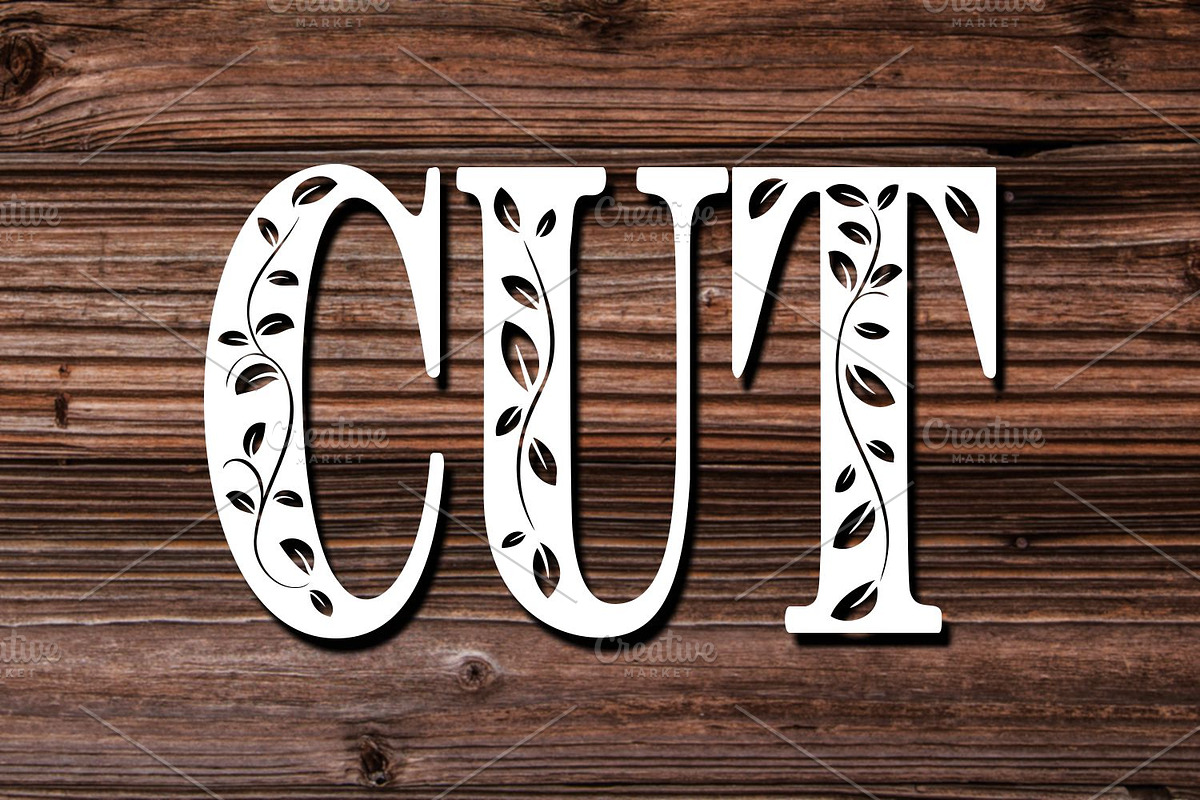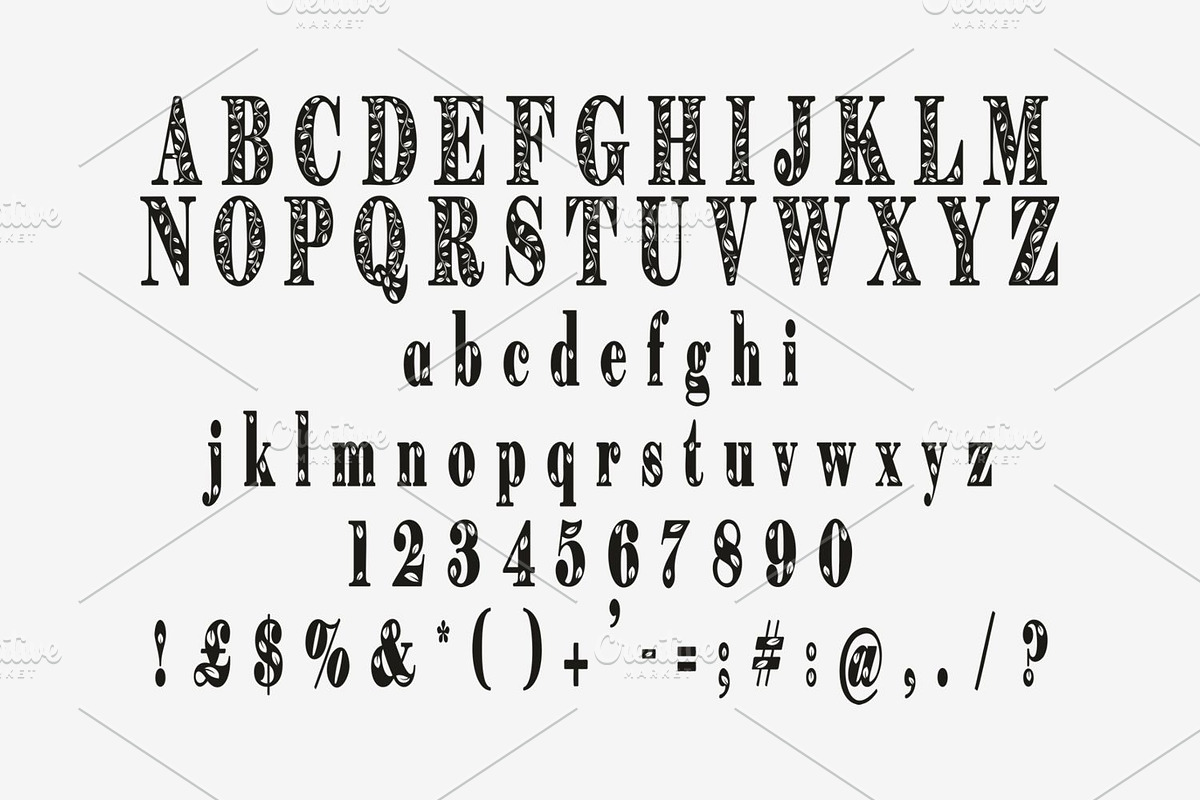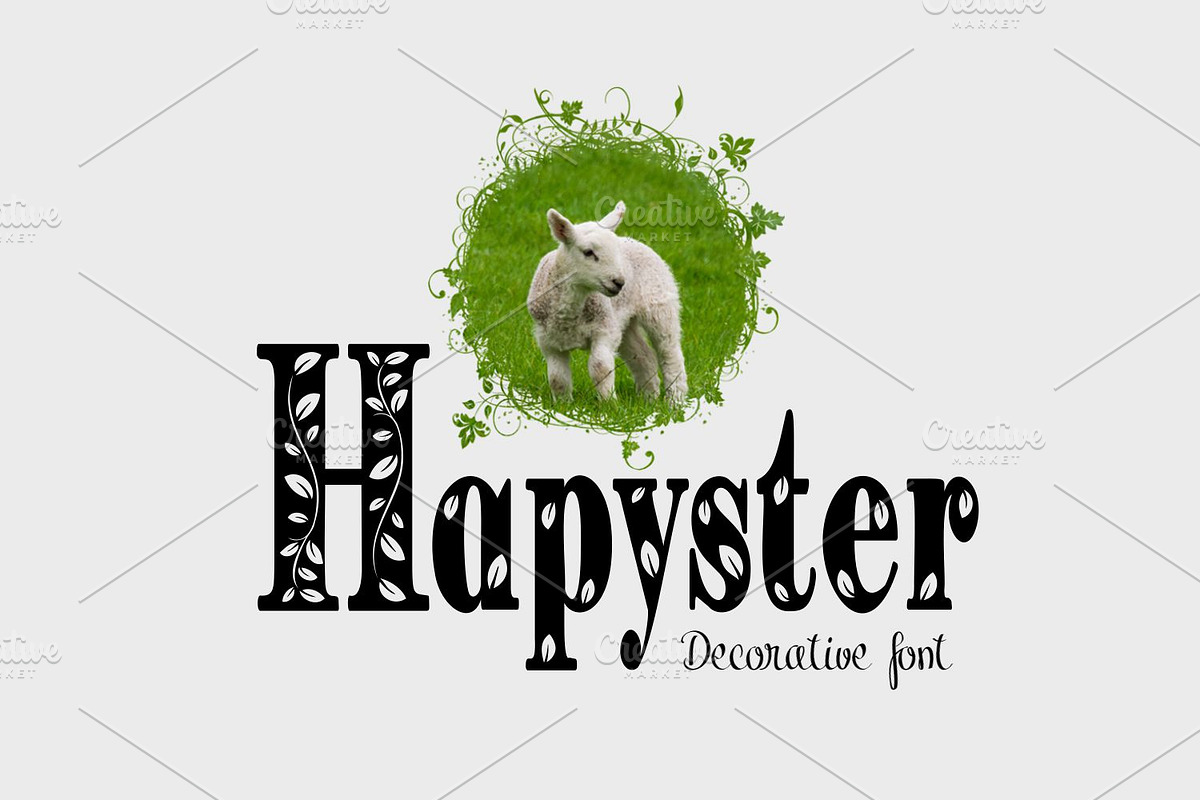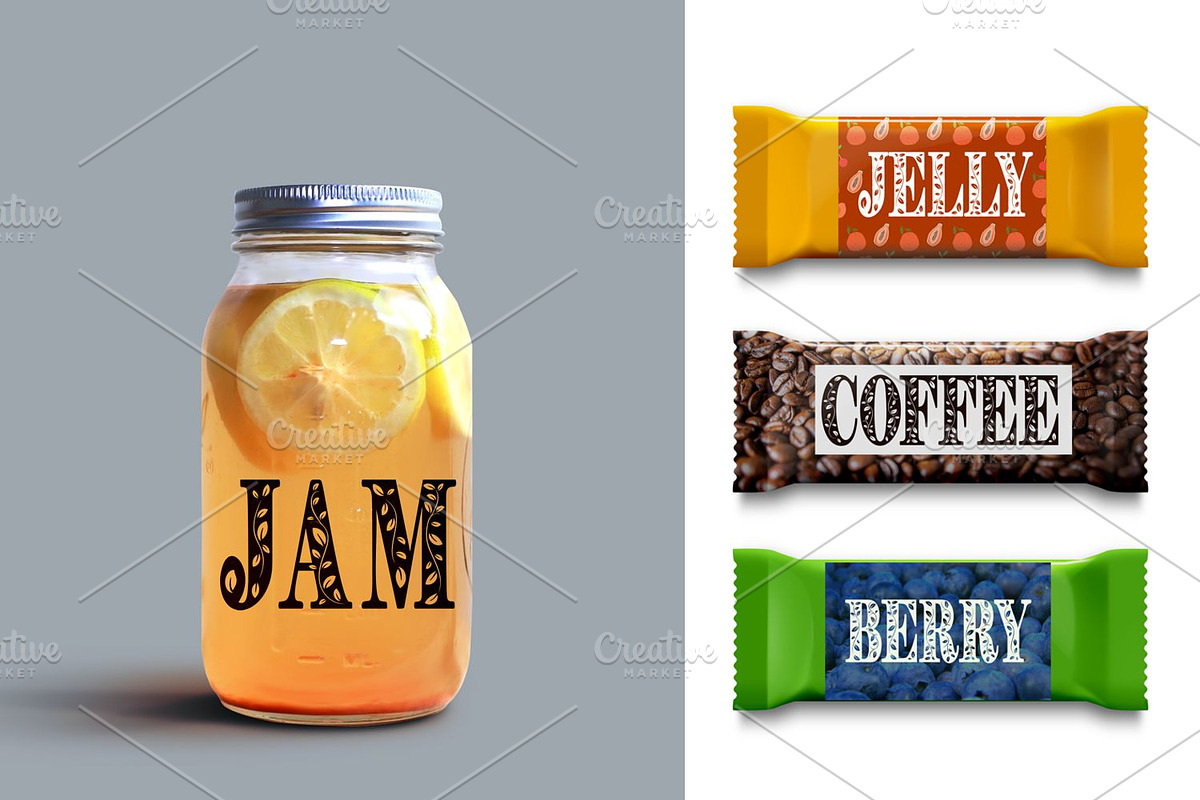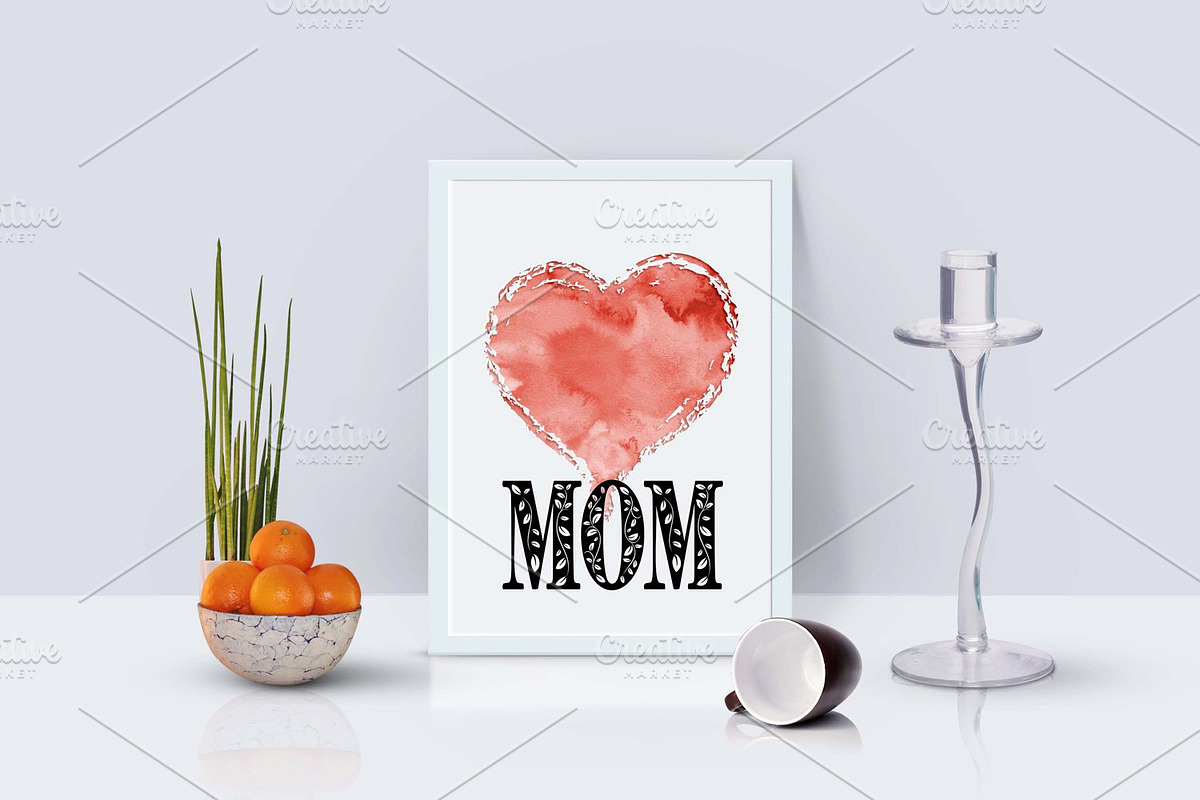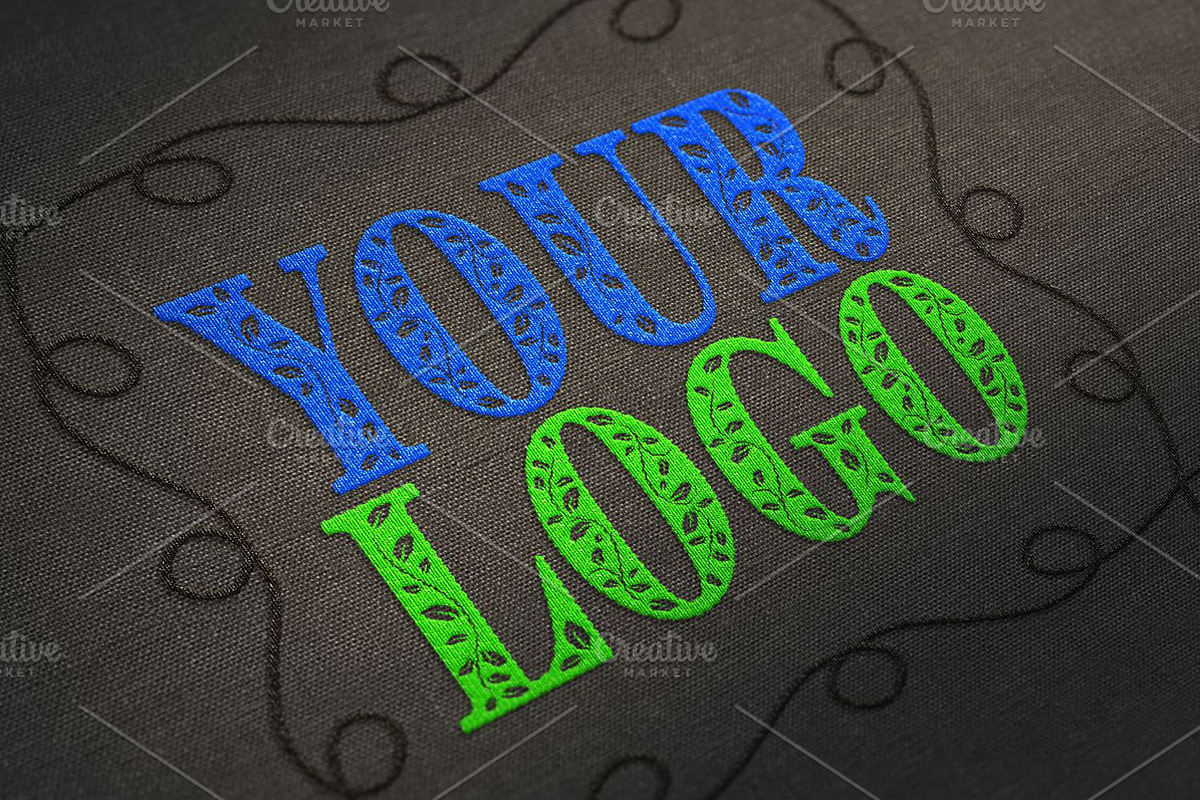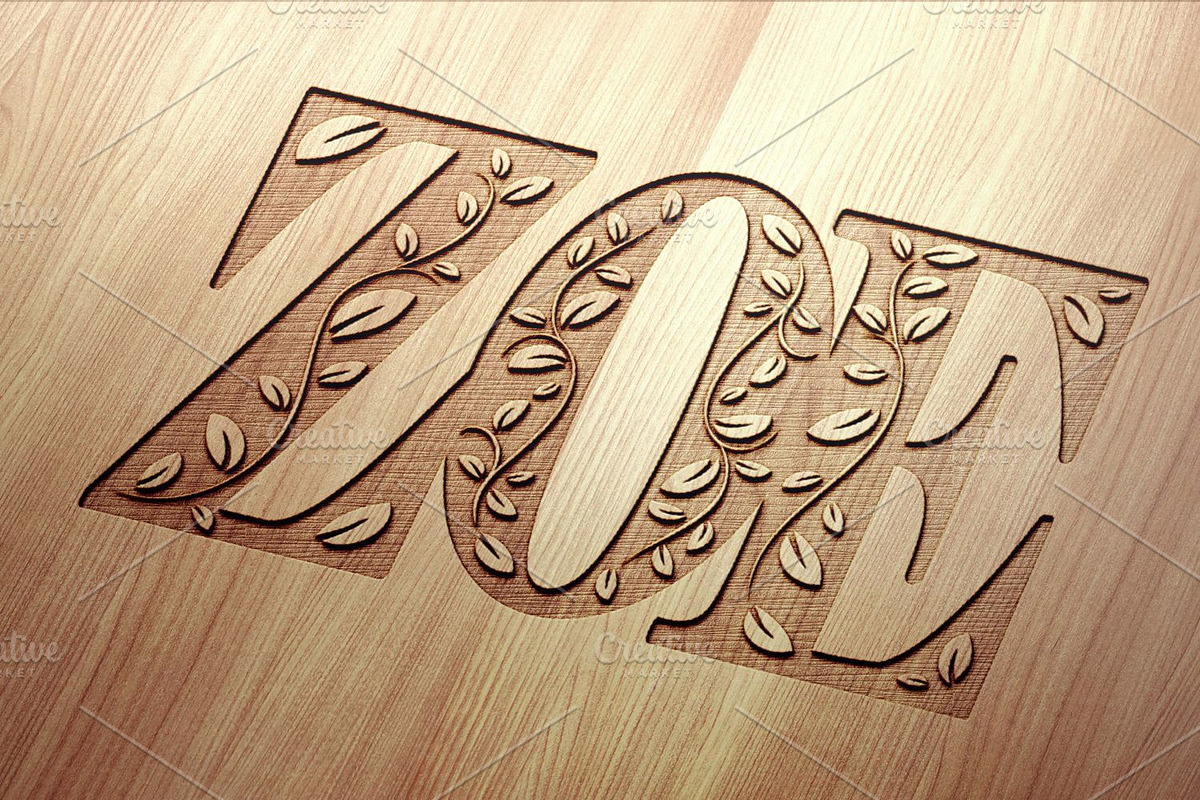
Hapyster
Hapyster is carefully crafted decorative typeface.
Hapyster by Digital Typeface Studio fits naturally into Branding, posters, packaging, typography.